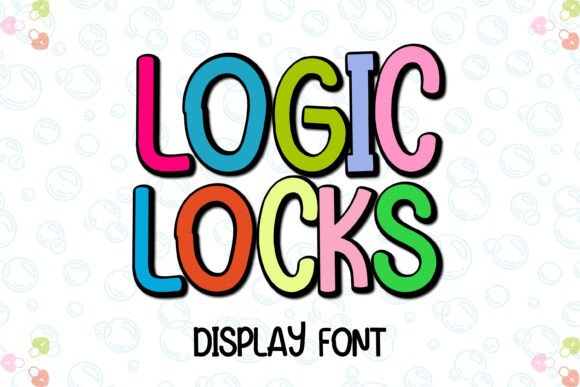
Unlocking Creativity: The Power of Logic Locks Font
In the realm of graphic design, fonts play a pivotal role in conveying messages, evoking emotions, and creating lasting impressions. Among the myriad of fonts available, Logic Locks Font stands out as a vibrant and whimsical addition to any creative project. This color font is designed to inject joy and playfulness into your designs, making it an ideal choice for a wide range of applications, from branding initiatives and packaging designs to logotypes, headlines, and wedding invitations.
The Essence of Logic Locks Font
Logic Locks Font is more than just a font; it’s an experience. Its vibrant colors and whimsical design are bound to elevate your design endeavors, adding a touch of charm and personality to your creations. Whether you’re working on a branding project, a packaging design, or a wedding invitation, this font is sure to make your work stand out.
One of the key features of Logic Locks Font is its versatility. Its unique design makes it suitable for a wide range of applications, from playful and fun to serious and professional. This font is perfect for designers who want to add a sprinkle of charm to their work, making it an excellent choice for projects that require a touch of personality.
The Benefits of Using Logic Locks Font
So, what makes Logic Locks Font an excellent choice for your design projects? Here are just a few benefits of using this vibrant and whimsical font:
- Emotional Connection: Logic Locks Font is designed to evoke emotions and create a connection with your audience. Its playful and whimsical design makes it perfect for projects that require a touch of personality and charm.
- Versatility: This font is suitable for a wide range of applications, from branding initiatives and packaging designs to logotypes, headlines, and wedding invitations.
- Creativity: Logic Locks Font is designed to inspire creativity and imagination. Its unique design makes it perfect for designers who want to add a touch of personality to their work.
- Readability: Despite its playful design, Logic Locks Font is highly readable, making it perfect for projects that require a font that is both fun and functional.
Applications of Logic Locks Font
So, what can you use Logic Locks Font for? The possibilities are endless! Here are just a few ideas to get you started:
- Branding Initiatives: Use Logic Locks Font to create a memorable brand identity that stands out from the crowd.
- Packaging Designs: Add a touch of personality to your packaging designs with this vibrant and whimsical font.
- Logotypes: Create a lasting impression with a logotype that incorporates Logic Locks Font.
- Headlines: Use this font to create attention-grabbing headlines that draw your audience in.
- Wedding Invitations: Add a sprinkle of charm to your wedding invitations with Logic Locks Font.
Tips for Using Logic Locks Font
Here are a few tips for using Logic Locks Font in your design projects:
- Experiment with Colors: Logic Locks Font comes in a range of vibrant colors. Experiment with different colors to find the one that works best for your project.
- Play with Size: This font looks great in a variety of sizes. Experiment with different sizes to find the one that works best for your project.
- Mix and Match: Don’t be afraid to mix and match Logic Locks Font with other fonts to create a unique and visually appealing design.
In conclusion, Logic Locks Font is a vibrant and whimsical addition to any creative project. Its unique design makes it perfect for a wide range of applications, from branding initiatives and packaging designs to logotypes, headlines, and wedding invitations. With its emotional connection, versatility, creativity, and readability, this font is sure to elevate your design endeavors and add a sprinkle of charm to your work.
So why wait? Unlock the power of Logic Locks Font today and experience the transformative power of this uplifting font in your designs.
- What is Logic Locks Font? Logic Locks Font is a vibrant and whimsical color font designed to add a touch of personality and charm to your design projects.
- What can I use Logic Locks Font for? You can use Logic Locks Font for a wide range of applications, including branding initiatives, packaging designs, logotypes, headlines, and wedding invitations.
- Is Logic Locks Font easy to read? Yes, Logic Locks Font is highly readable, making it perfect for projects that require a font that is both fun and functional.